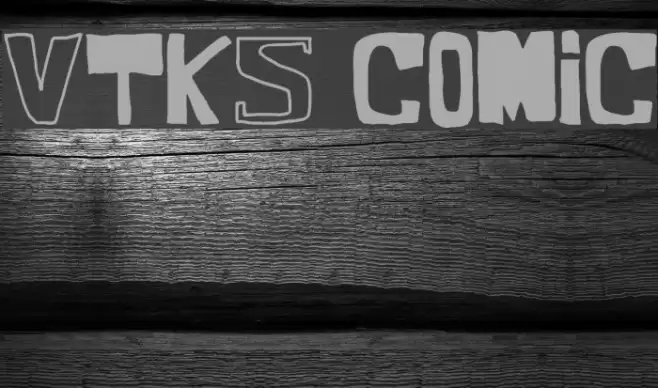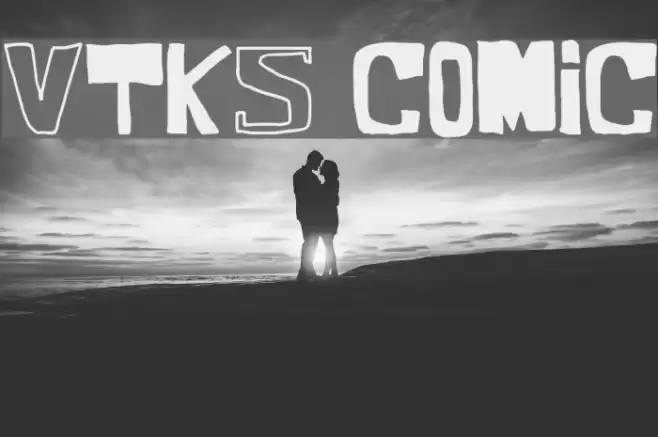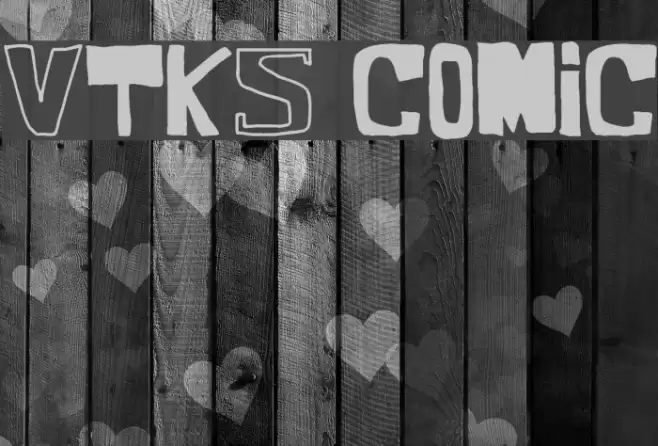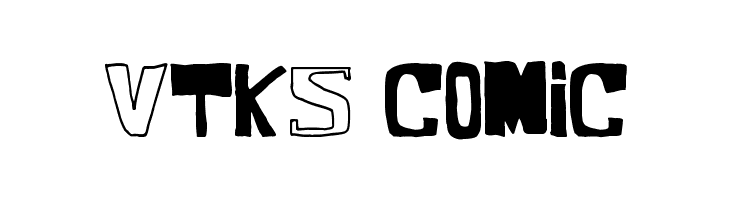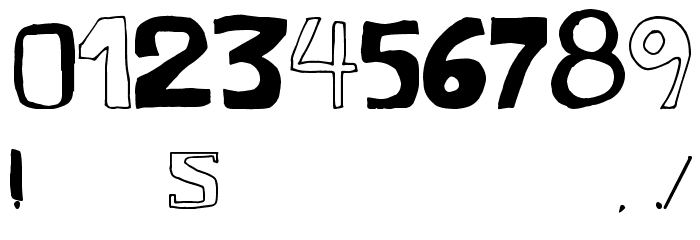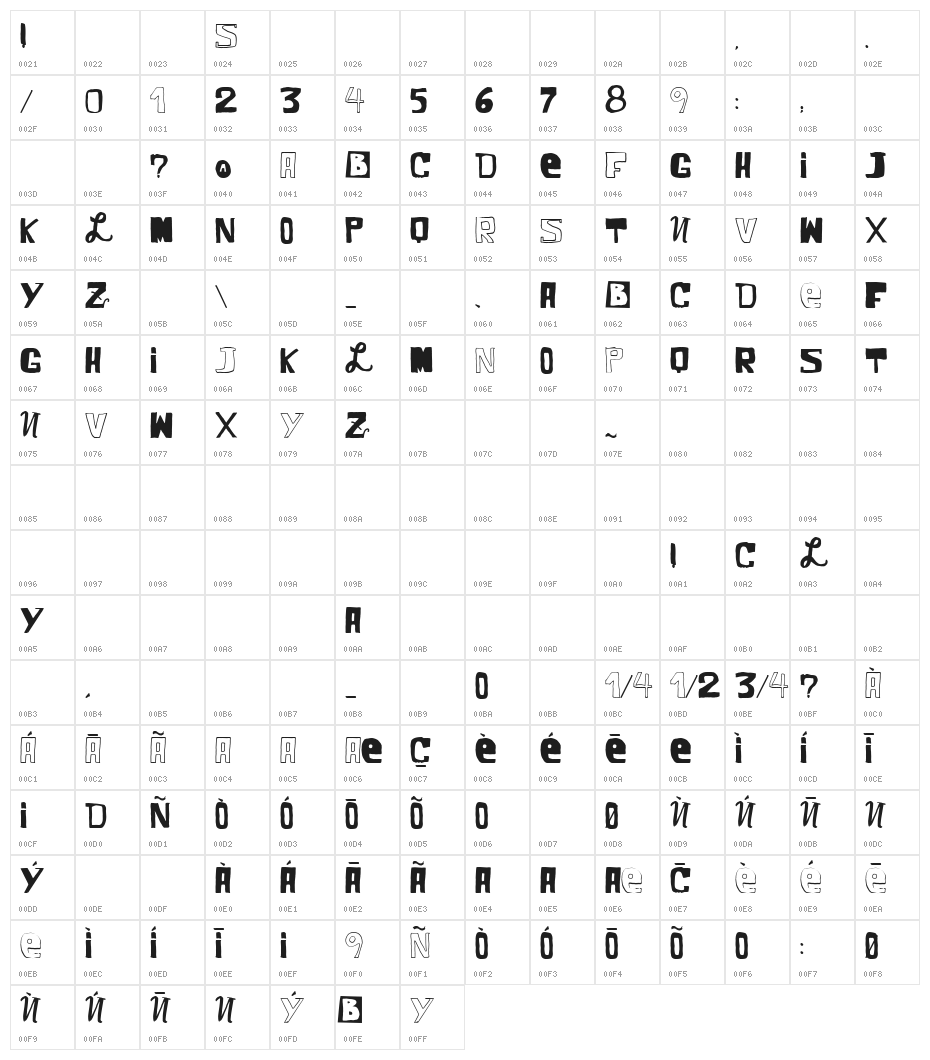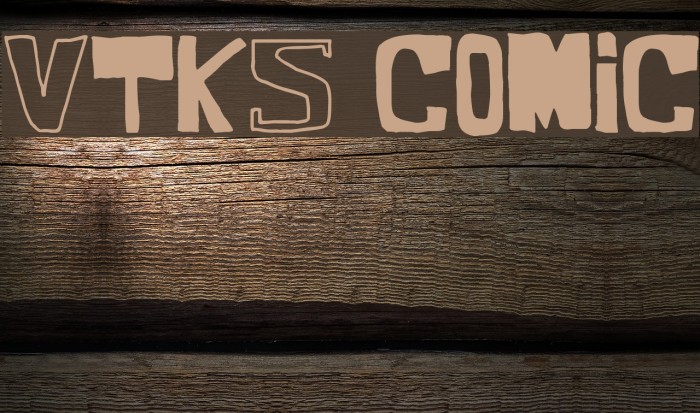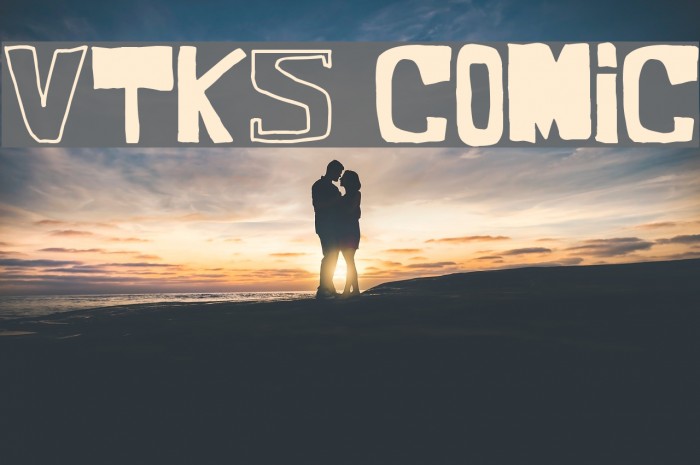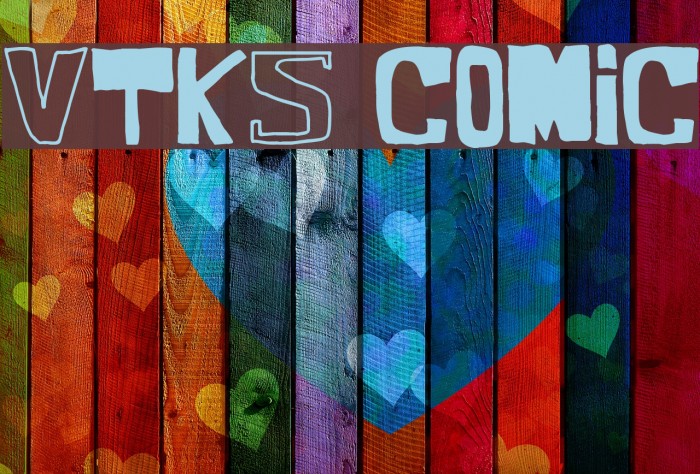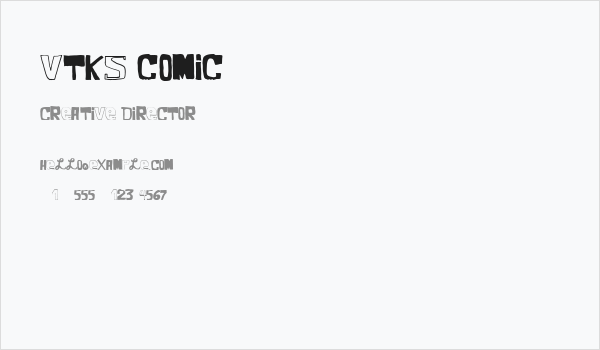
VTKS COMIC Font
VTKS COMIC Description
This playful and bold font features a comic-inspired style with a mix of thick and thin strokes, creating a dynamic and energetic appearance. The uppercase letters are bold and blocky, while the lowercase letters maintain a quirky and informal look. Numbers and special characters follow the same playful theme, making the font suitable for creative and fun projects. The irregular shapes and varying stroke widths give it a hand-drawn feel, adding to its charm and uniqueness.
A playful, comic-inspired font with bold, irregular strokes and a hand-drawn feel from Uncategorized fonts.
- Proposed Projects: Ideal for comic books, children's books, playful branding, posters, and creative digital content.
- Overall Style: Playful, Comic, Hand-drawn